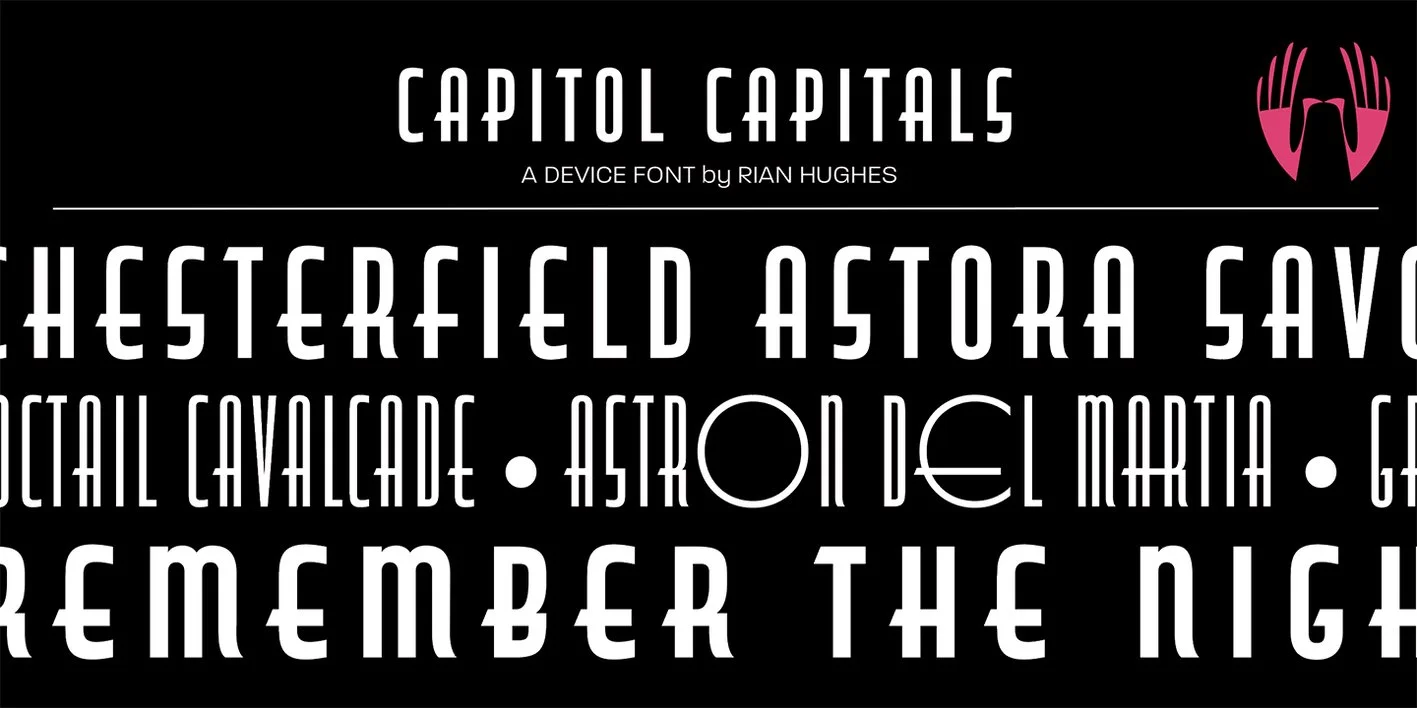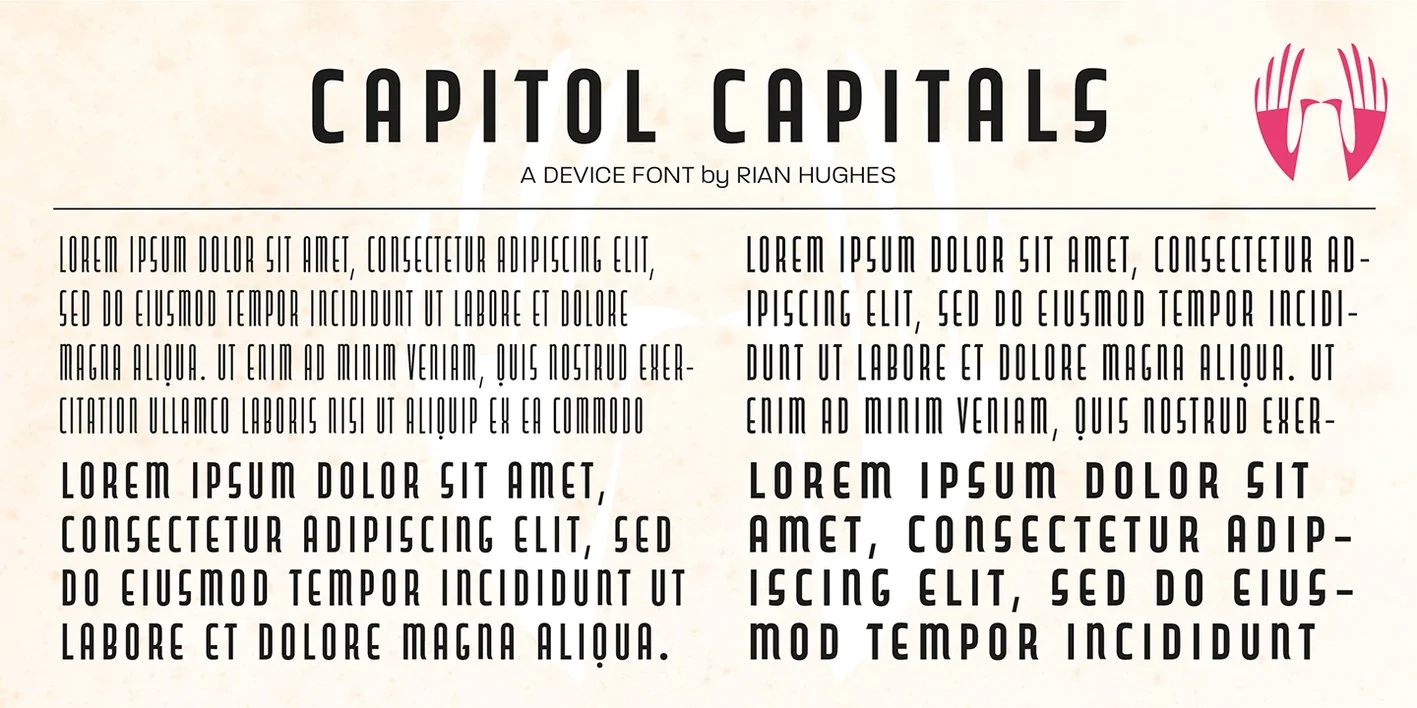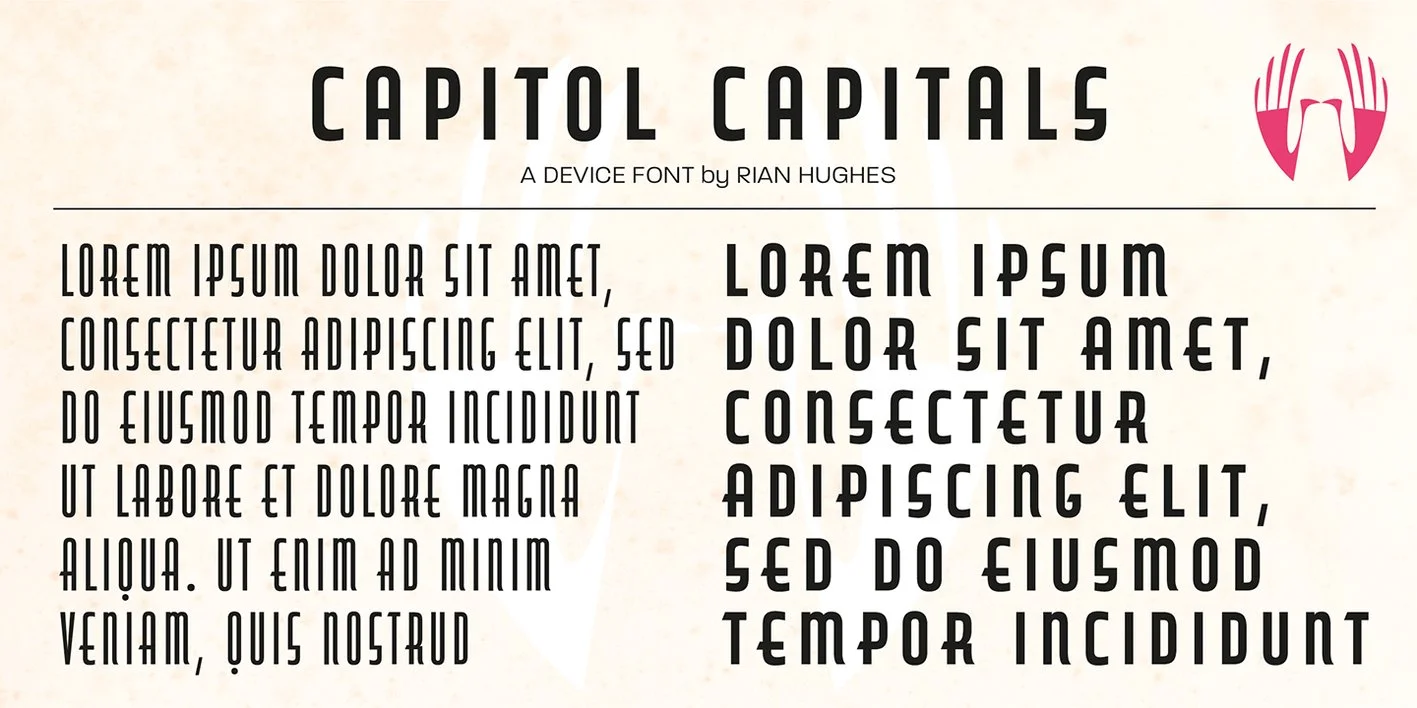
Capitol Capitals Font
When a design brief calls for both distinctive character without sacrificing readability and immediate visual impact, type choices matter — Capitol Capitals answers that brief. The typeface brings a versatile sensibility to a broad range of creative disciplines, with visual harmony and precise spacing that holds up whether the work is print-first or screen-first.
In practice, Capitol Capitals proves particularly effective for annual reports, product labels, advertising campaigns, brand identity systems, environmental graphics. Designers reaching for it find that the type decisions feel resolved rather than laboured — a useful quality when client timelines are tight.
The range of applications extends to web design, editorial layouts, logo design, social media graphics. That breadth is deliberate: the proportions and spacing were stress-tested across a wide range of mock briefs before the typeface was finalised.
Graphic designers working on identity systems find Capitol Capitals a reliable choice for projects that demand both personality and restraint. The design avoids the self-conscious quirkiness that dates quickly, settling instead for considered distinctiveness that holds up over time.